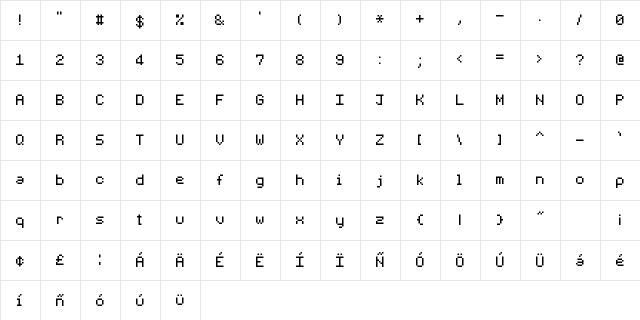
EXEPixelPerfect Medium
Design Context for EXEPixelPerfect Typeface
EXEPixelPerfect celebrates the constraints of early digital type, turning pixel geometry into a distinctive and immediately recognisable style.
A natural choice for retro game titles, chiptune music branding, 8-bit UI, and digital nostalgia projects.
Pro Tip: Pair EXEPixelPerfect with flat colour palettes and simple geometric UI elements to reinforce its digital aesthetic.